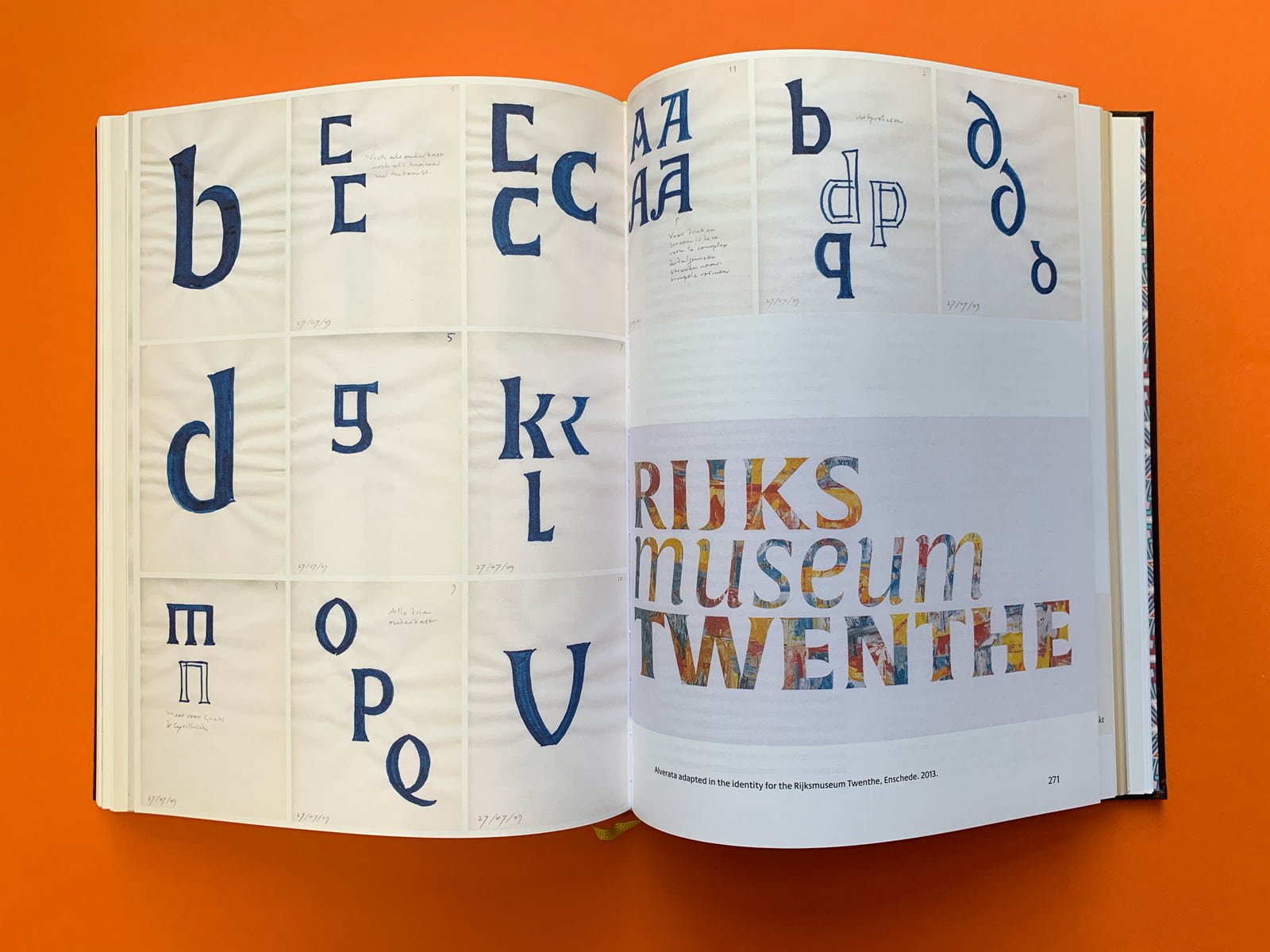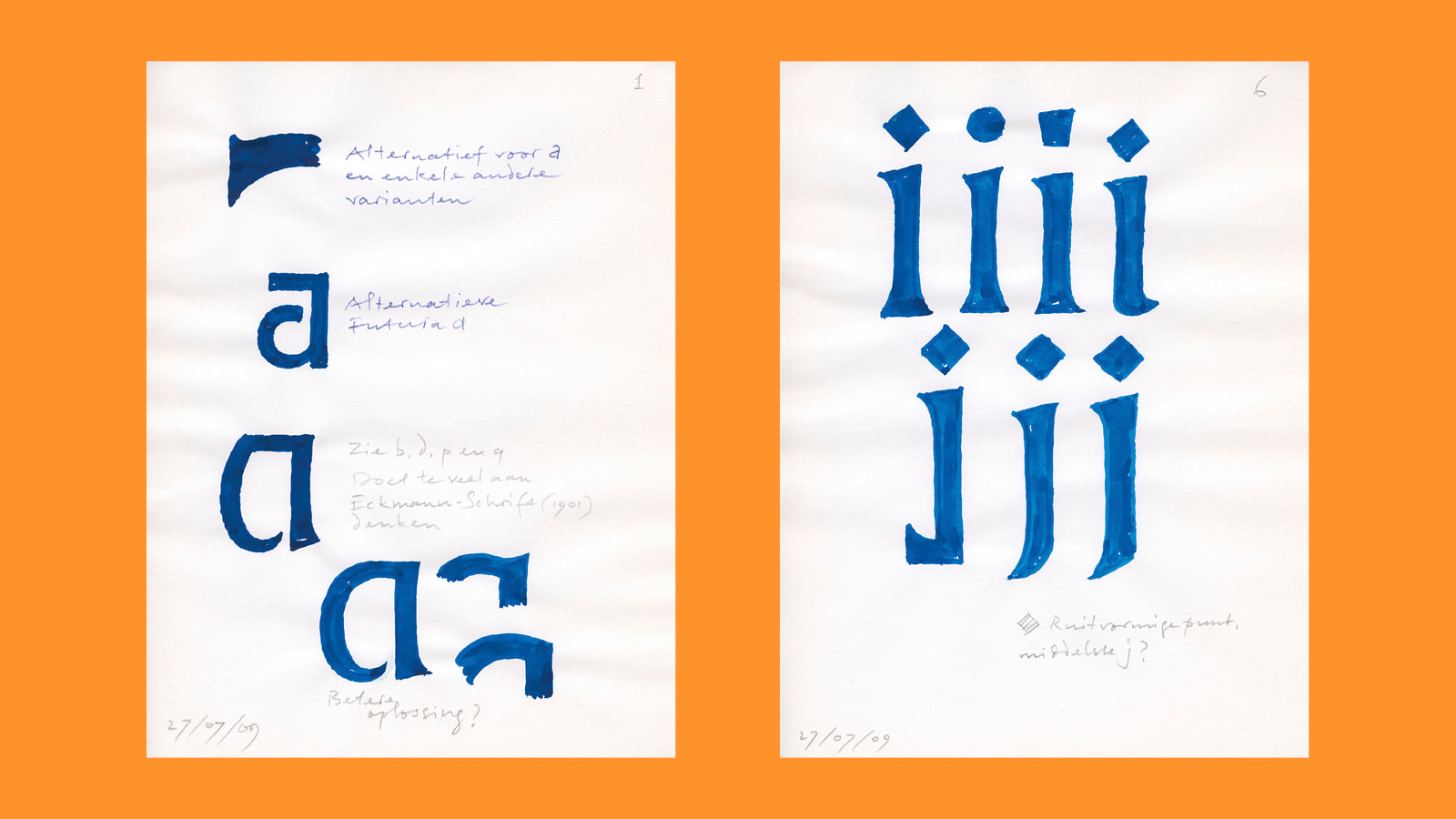
We last saw Gerard Unger at ATypI 2018 in Antwerp. Though barely a half-step slower, he was still his usual joyful self, both pensive and positive. He shared with us the seriousness of his health, the uncertainty, and his hope. He was a bright and deep soul with the gift of wit, the desire to help others, and compassion for all. We enjoyed him and cared for him immensely, and we did not know how short our time together was. Five years on, it seems so long ago and still just a blink.
Gerard was an accomplished type designer with an eye for real solutions. Setting lines of text next to each other in his typefaces will also reveal an unmistakeable sense of style, purpose, and forethought. So perceptive was he that he was able to turn the shortest of typographic histories into one of the most readable and unique typefaces, Alverata , as part of his doctoral work and research into readability studies. He followed this up with Sanserata, a further expansion of aesthetic expression and readable text.
Gerard’s magnum opus, Theory of type design, is the preeminent guide on why typefaces work and how to design them effectively. Burke’s book, Life in letters, dives into Unger’s professional life, design perspectives, and productivity. And of course, his many typefaces are best viewed as perpetual inspiration, trustworthy guides, and in their actual use: Alverata, Capitolium 2, Coranto 2, Sanserata, and other classics like Swift and Gulliver.
For quite some time prior to Gerard’s passing, we had already been discussing as a team how to honour such a magnanimous friend, yet nothing seemed enough. We knew we wanted to equally highlight his design skills as well as his life vision, so recasting our mentorship programme in his honour seemed the right choice. In this way, the younger generation would receive the same kind of hands-on mentoring and partnership we received from Gerard, gain the benefits of being propelled into their desired career, and the encouragement that comes from seeing the best in others. To this day the Gerard Unger Scholarship continues to mentor promising young type designers with the same commitment, positivity, and excellence Gerard helped to ingrain in us.
Once again we honour our friend and colleague Dr Gerard Unger, one of the many who set our trajectory early on. He believed in us, saw our potential, encouraged us, trusted us to work alongside him in releasing his typefaces, and now we get to do the same for others.